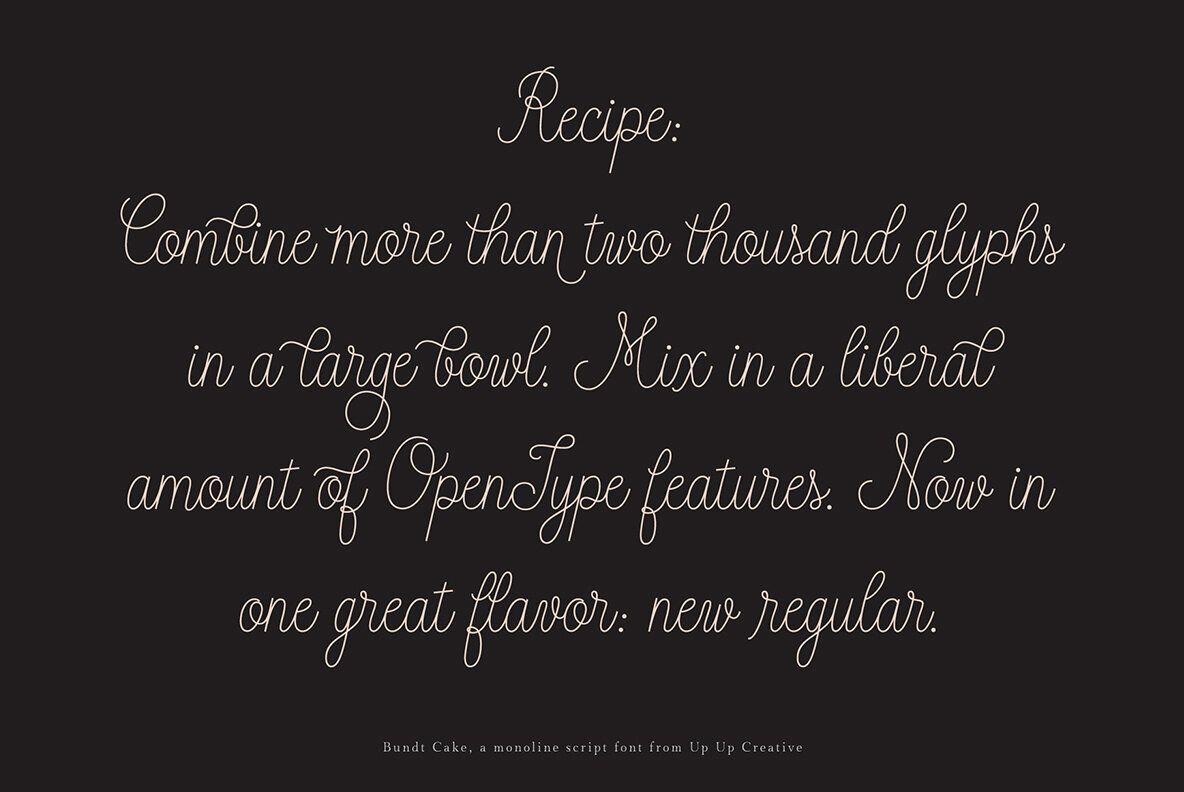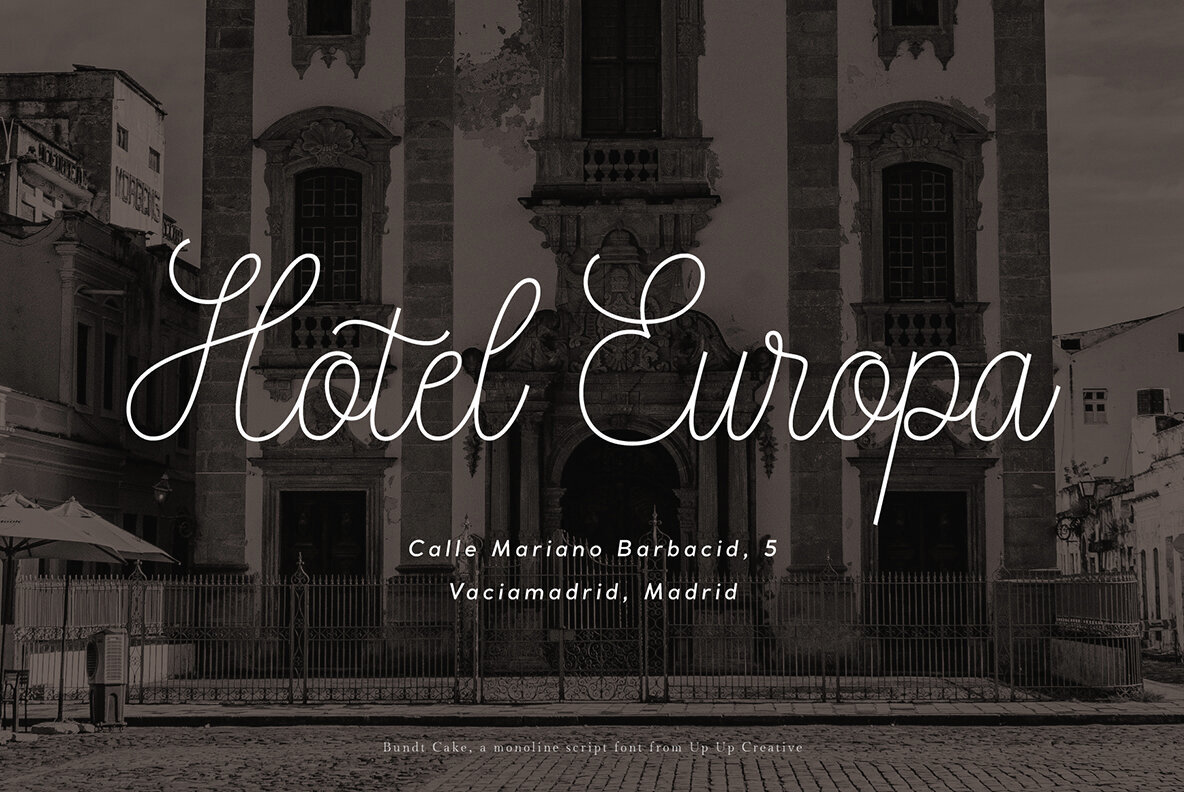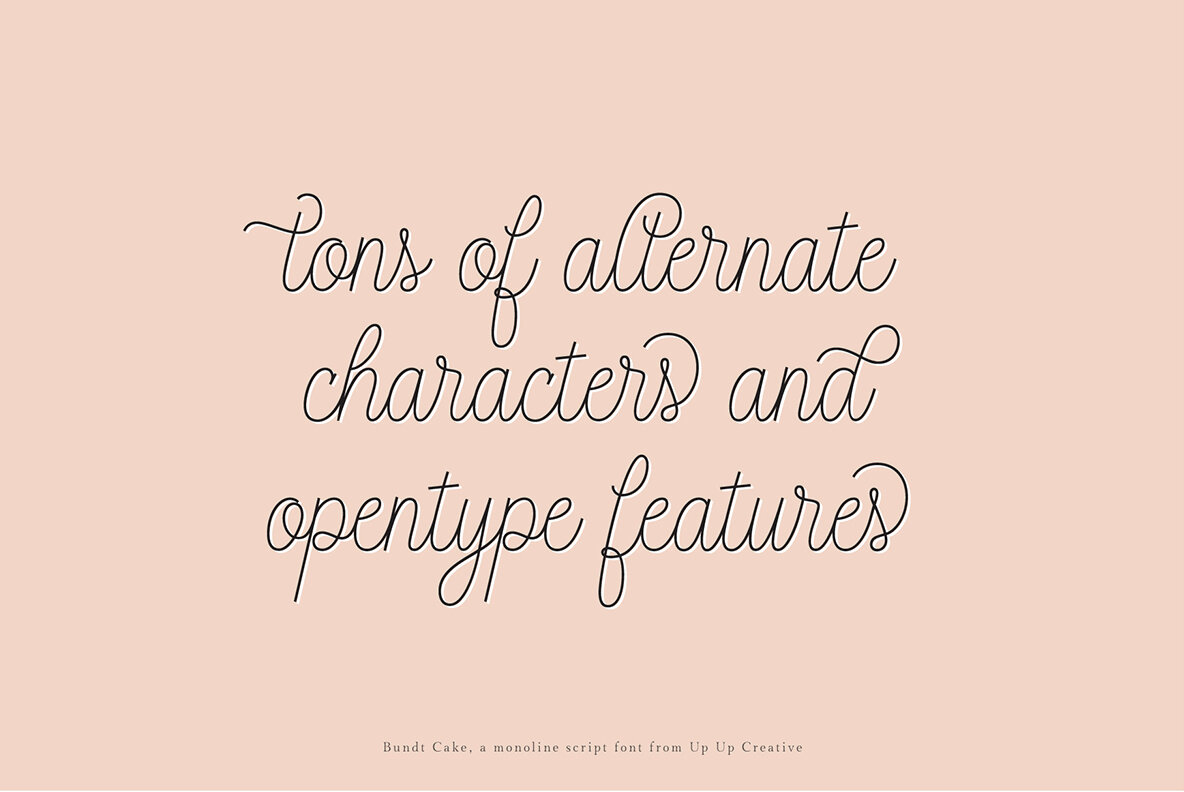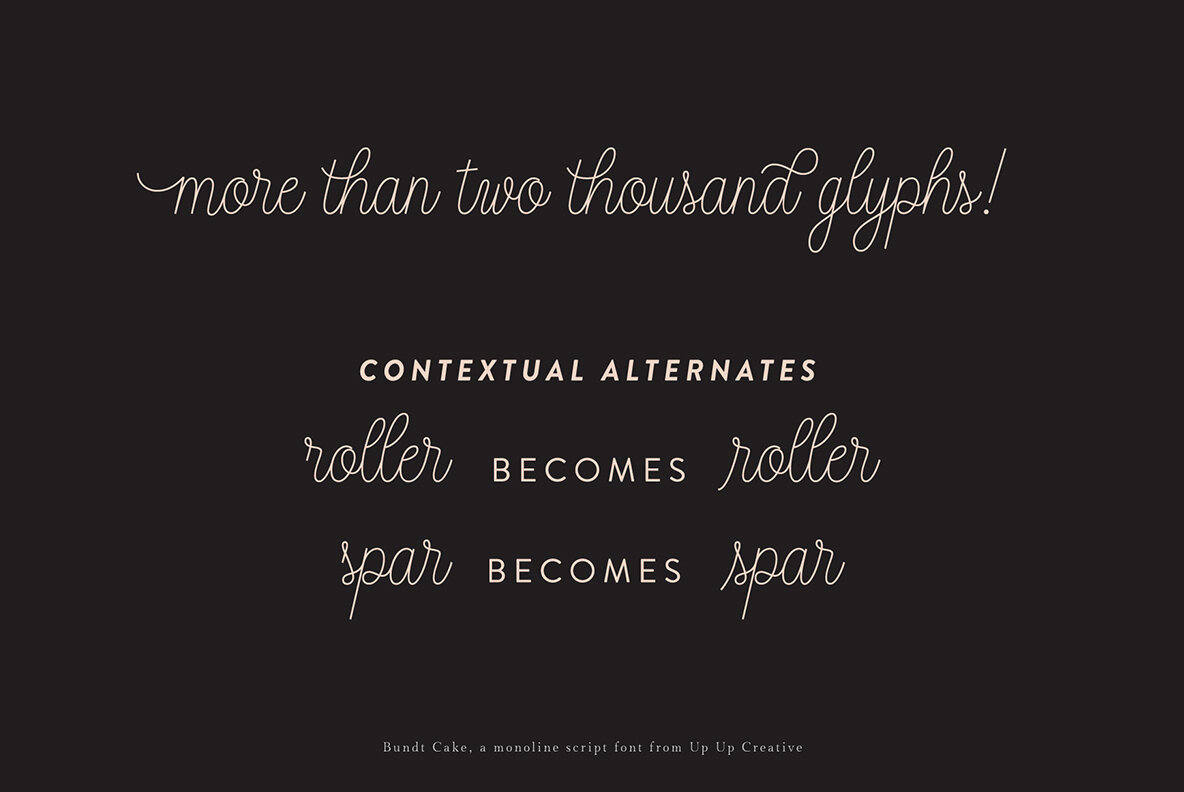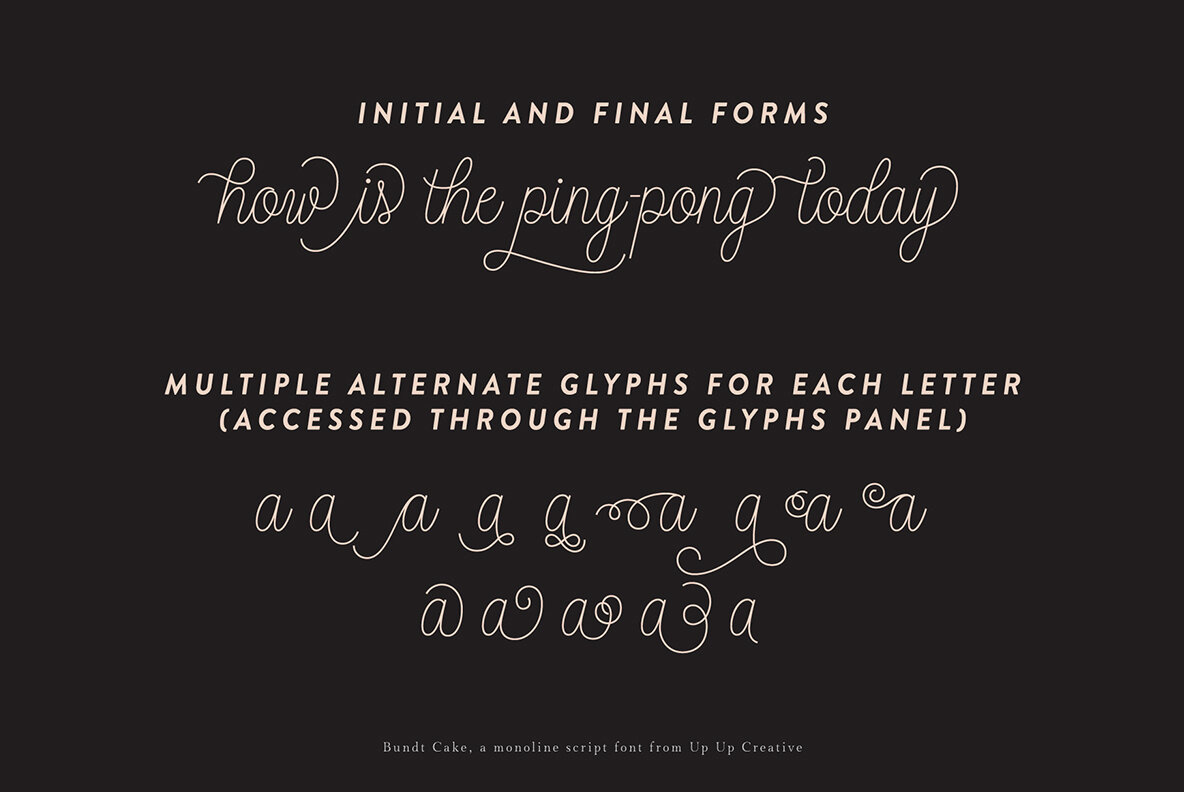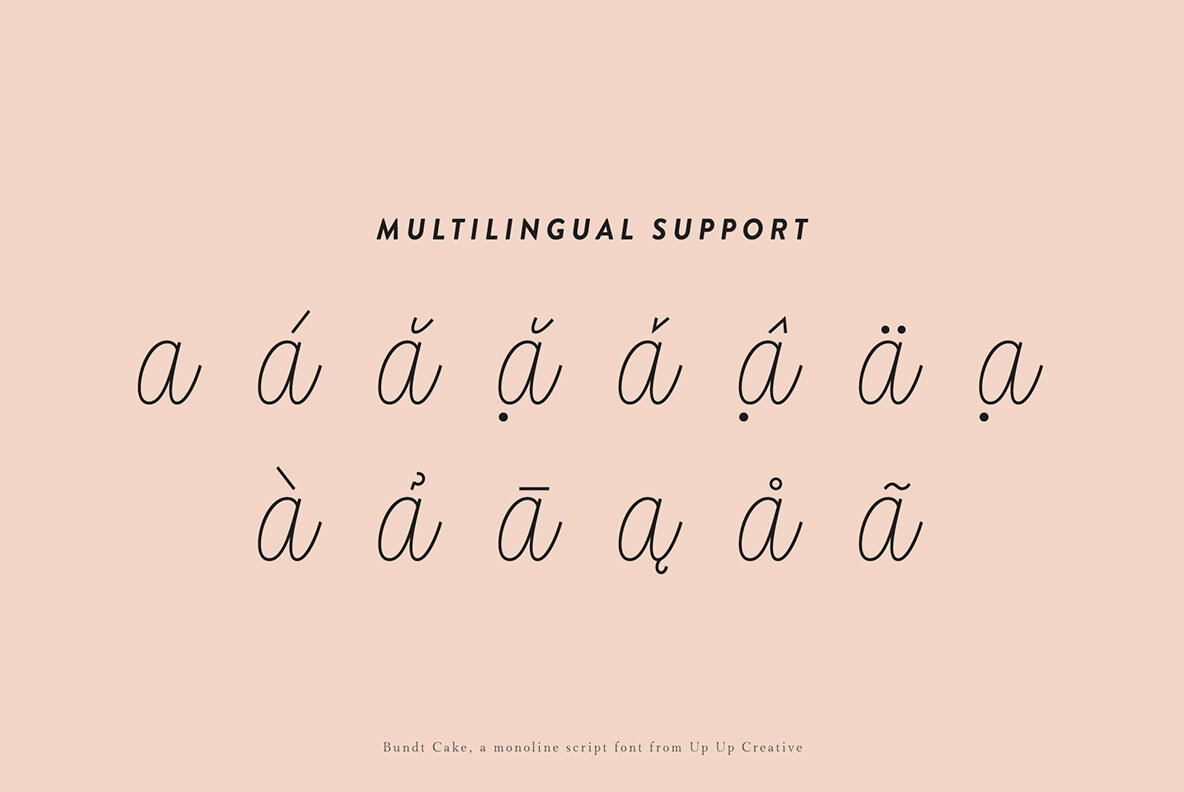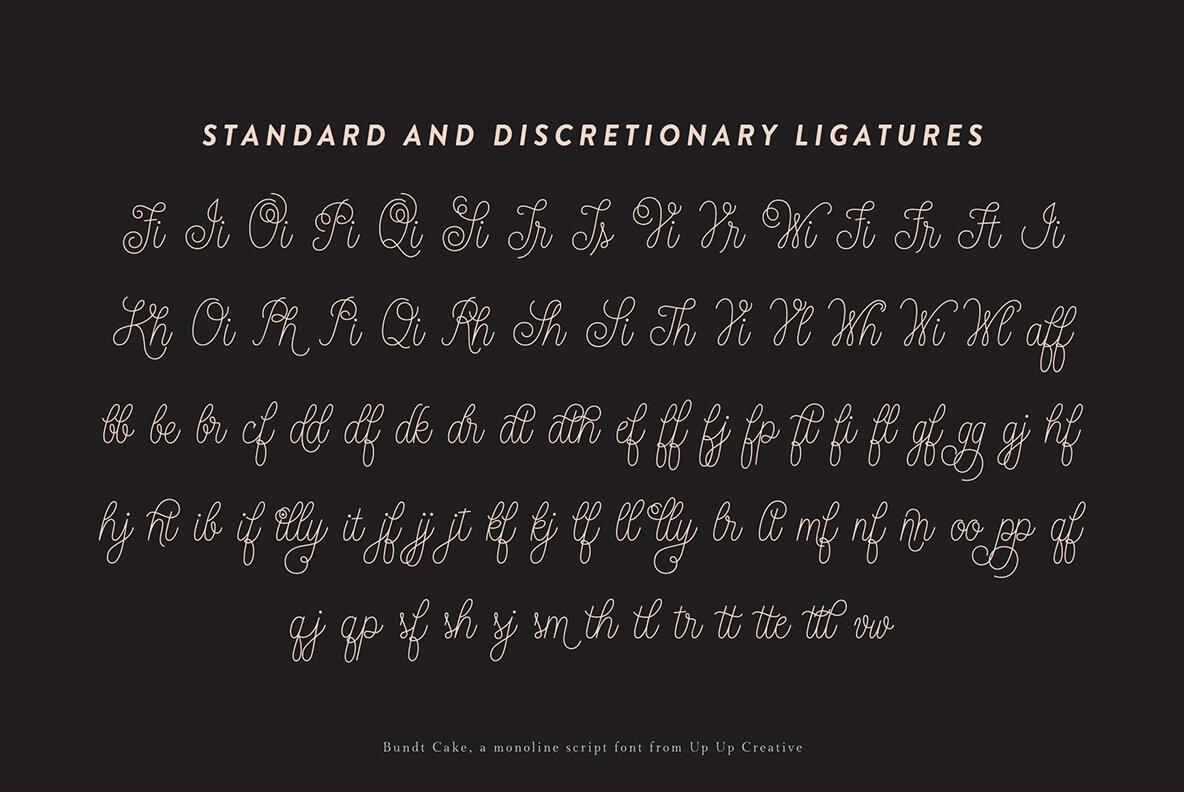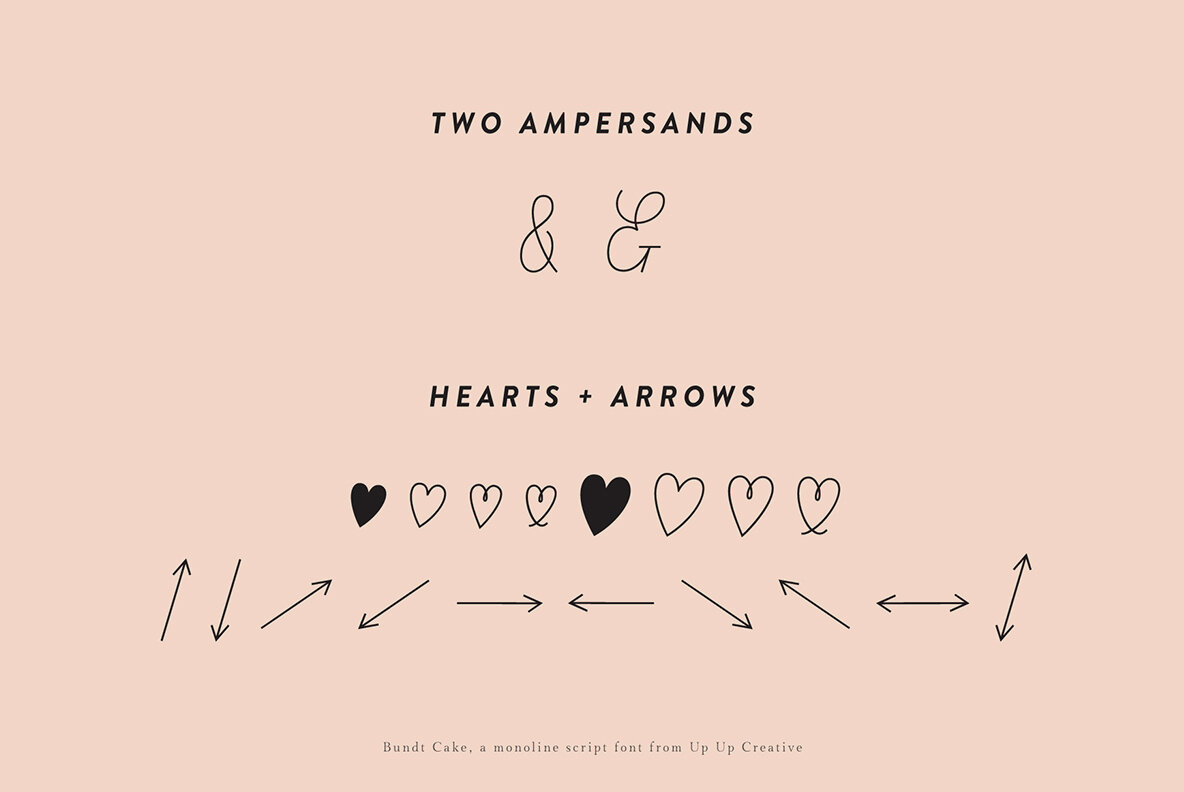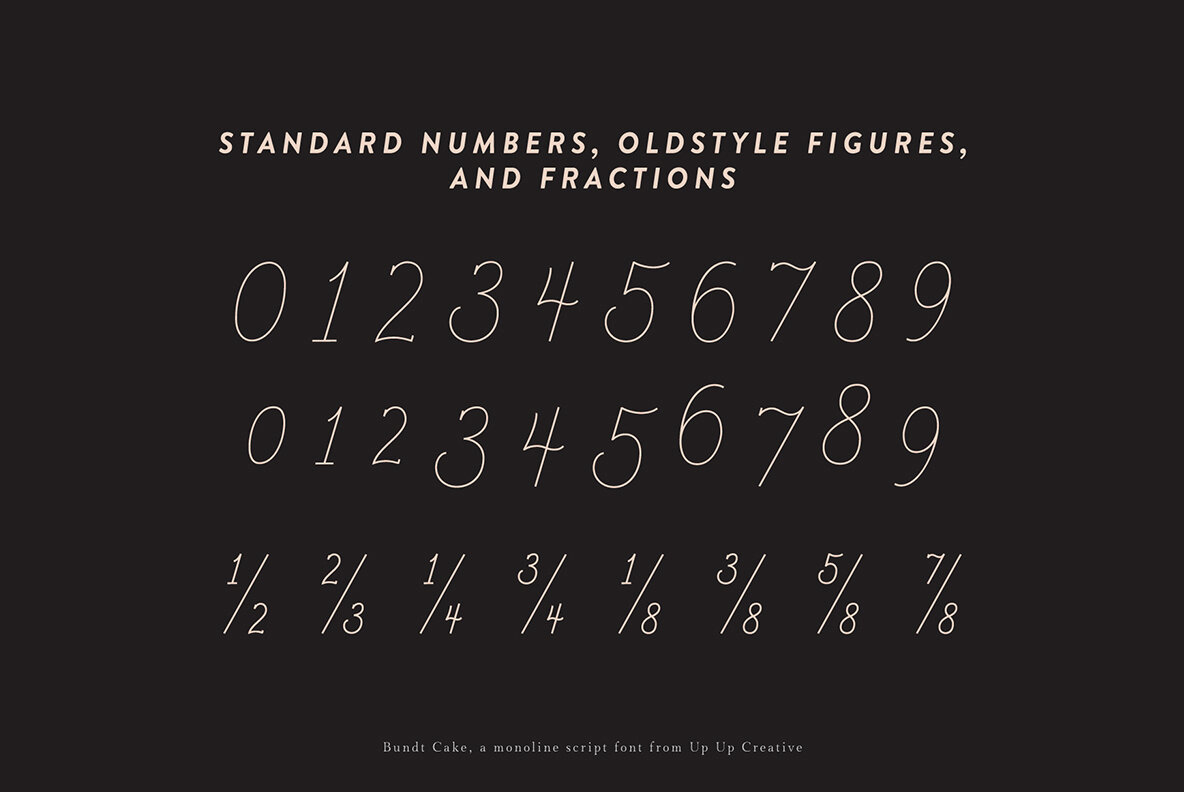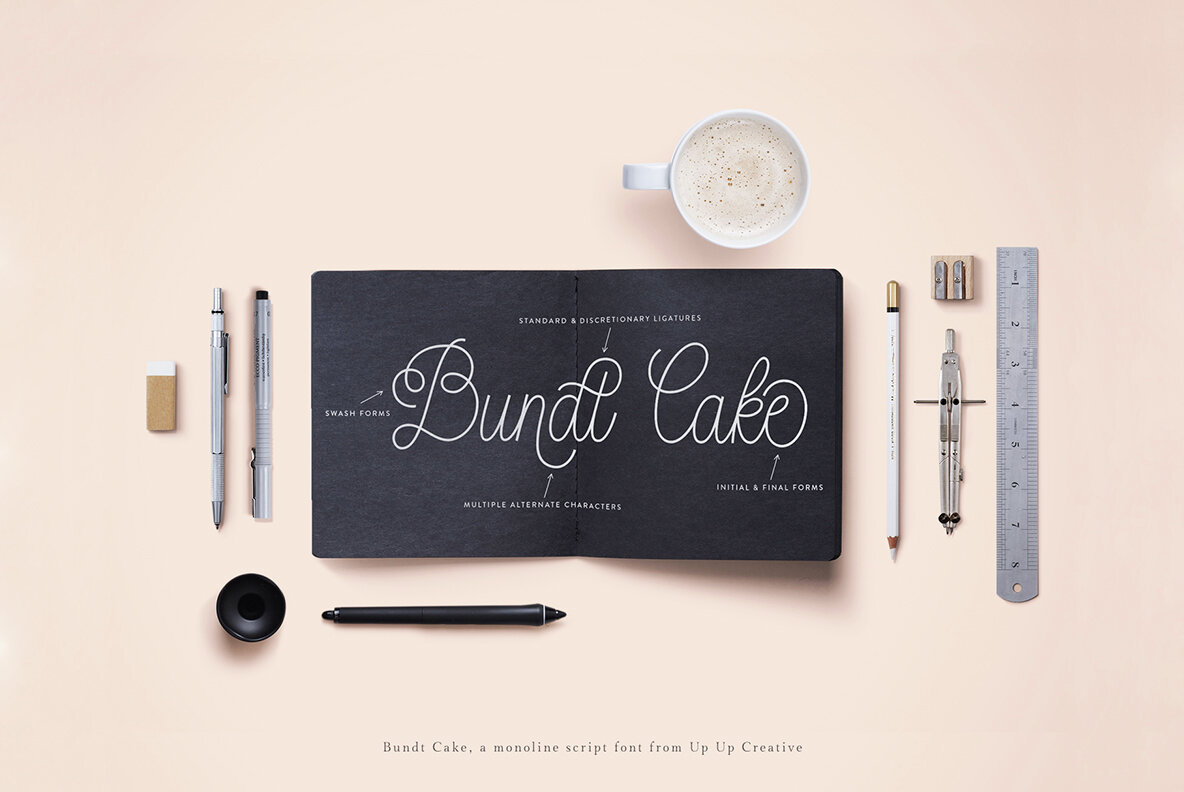
Bundt Cake Script Font
BundtCake New Regular
Bundt Cake is a charming mono-line script font featuring over 2000 glyphs and a variety of OpenType features, including contextual alternates and fun ligatures. This font is ideal for branding, wedding suites, headlines, editorial use, large type, and calls to action.